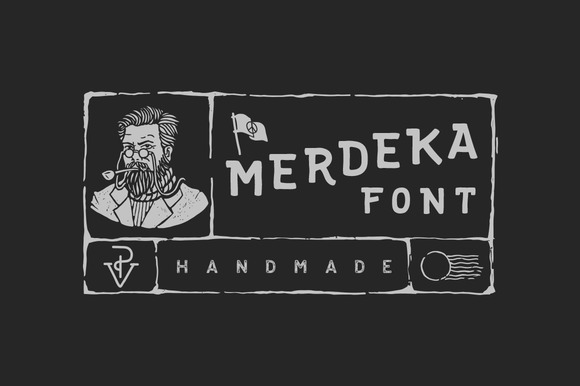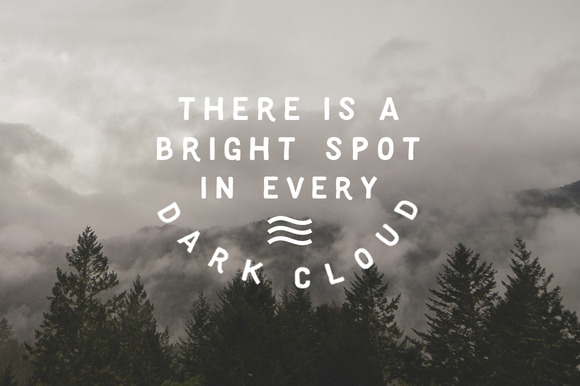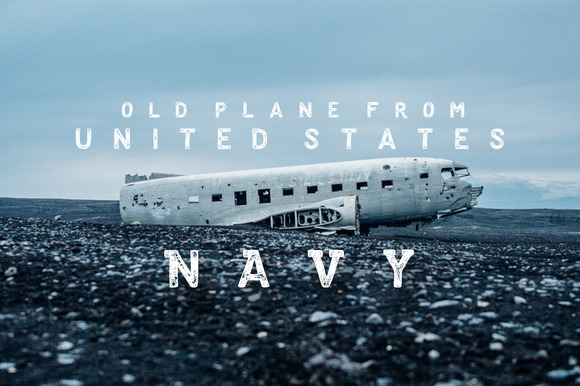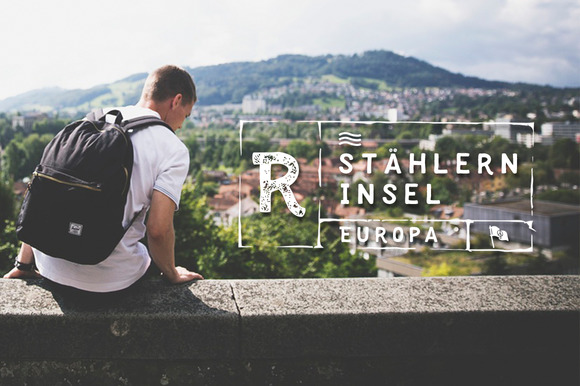
Merdeka Font
Merdeka is a handmade vintage font. Add some strong visual to your project, it’s perfect for latterhead, vintage apparel design, headline, logotype, poster, card, and etc.